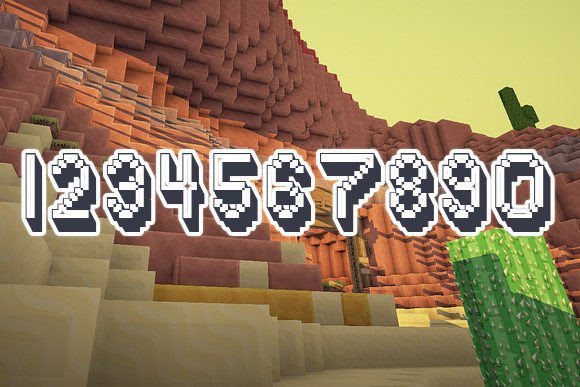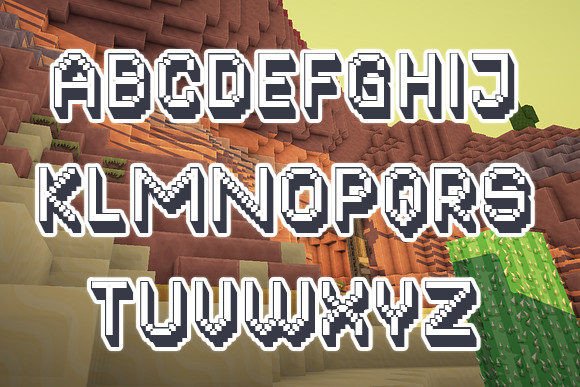
Introducing Digital Arcade Font: Elevate Your Designs with a Retro 3D Twist
In the world of digital design, typography plays a crucial role in capturing the essence of a project. Whether you’re working on a retro-themed video game, a futuristic website, or a nostalgic advertisement, the right font can make all the difference. This is where Digital Arcade Font comes in – an awesome 3D computer display typeface that will look stunning on any project. No matter the topic, this font will be an incredible asset to your fonts’ library, as it has the potential to elevate any creation.
The Retro-Futuristic Charm of Digital Arcade Font
Digital Arcade Font is a unique and captivating typeface that embodies the spirit of classic arcade games and futuristic computer displays. Its 3D design and bold lines evoke a sense of nostalgia and playfulness, making it perfect for projects that require a retro-futuristic touch. The font’s sleek and modern aesthetic ensures that it will complement a wide range of design styles, from minimalist to elaborate.
Key Features of Digital Arcade Font
- 3D Design: Digital Arcade Font boasts a striking 3D design that adds depth and dimension to any text.
- Bold Lines: The font’s bold lines ensure that it stands out, even at smaller font sizes.
- Retro-Futuristic Aesthetic: Digital Arcade Font’s retro-futuristic charm makes it perfect for projects that require a nostalgic touch.
- Versatility: This font is suitable for a wide range of projects, from video games and websites to advertisements and posters.
Use Cases for Digital Arcade Font
Digital Arcade Font is an incredibly versatile typeface that can be used in various design projects. Here are some use cases to get you started:
- Video Games: Add a retro touch to your video game’s title screen, menu, or HUD with Digital Arcade Font.
- Websites: Use Digital Arcade Font to create a futuristic and eye-catching header or title section for your website.
- Advertisements: Make your advertisements stand out with Digital Arcade Font’s bold and attention-grabbing design.
- Posters and Flyers: Create eye-catching posters and flyers with Digital Arcade Font’s unique 3D design.
Tips for Using Digital Arcade Font
To get the most out of Digital Arcade Font, here are some tips to keep in mind:
- Experiment with Colors: Digital Arcade Font looks great with bright, bold colors. Experiment with different color schemes to find the perfect combination for your project.
- Play with Lighting Effects: Add an extra layer of depth to your text with lighting effects, such as gradients or shadows.
- Mix and Match Fonts: Combine Digital Arcade Font with other fonts to create a unique and visually appealing typography.
Digital Arcade Font is an awesome 3D computer display typeface that will look stunning on any project. Its retro-futuristic charm, bold lines, and versatility make it an incredible asset to any designer’s font library. Whether you’re working on a video game, website, advertisement, or poster, Digital Arcade Font has the potential to elevate your creation and make it stand out. So why wait? Download Digital Arcade Font today and take your designs to the next level!